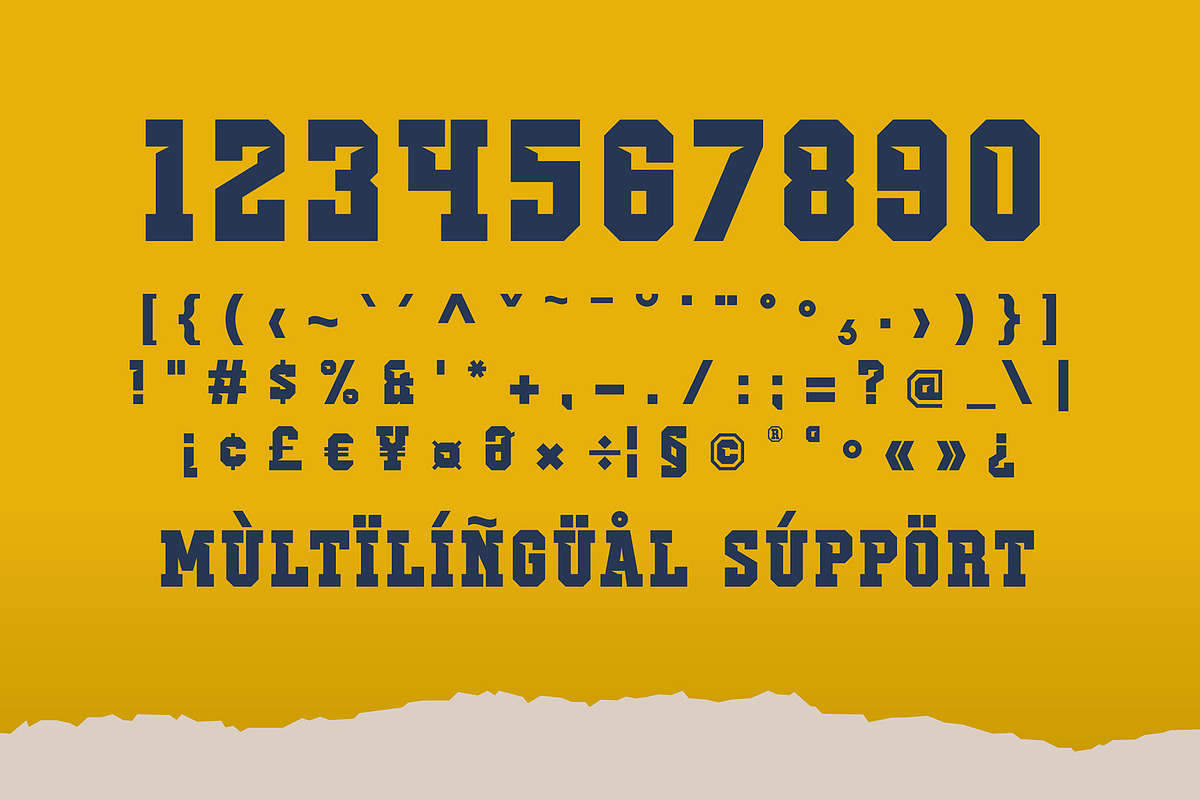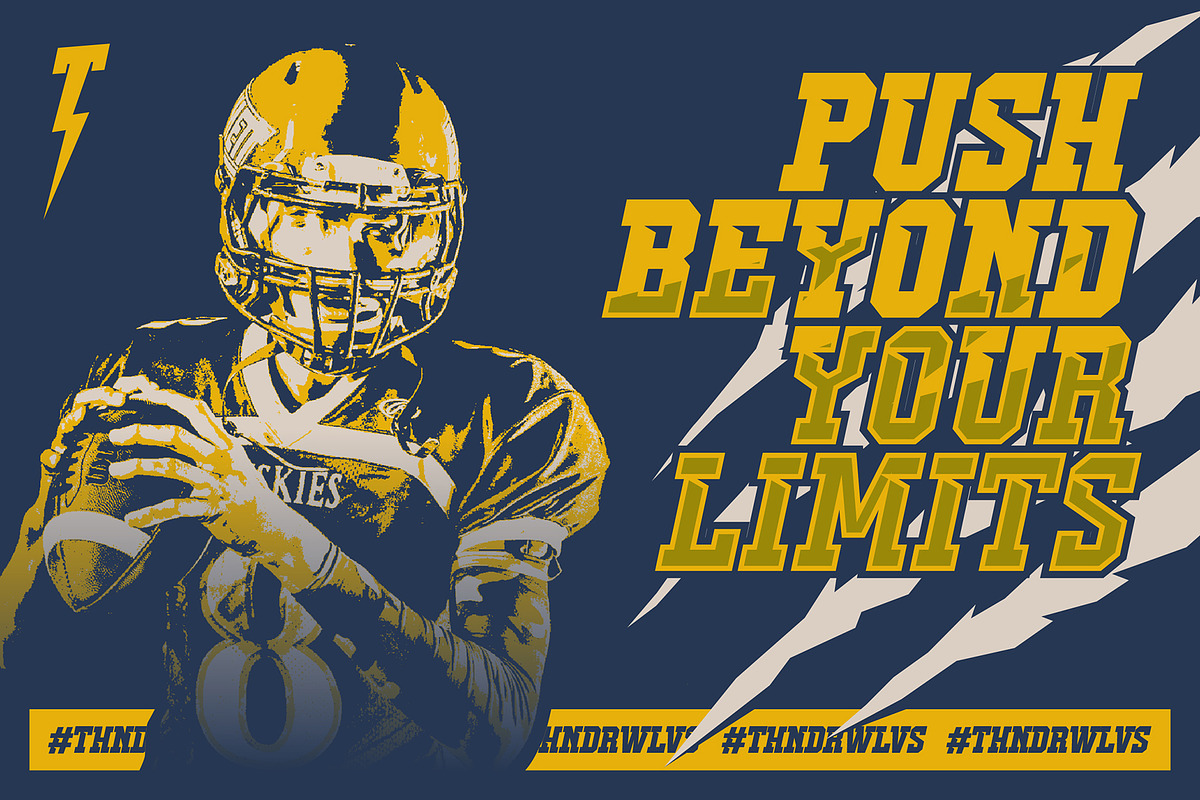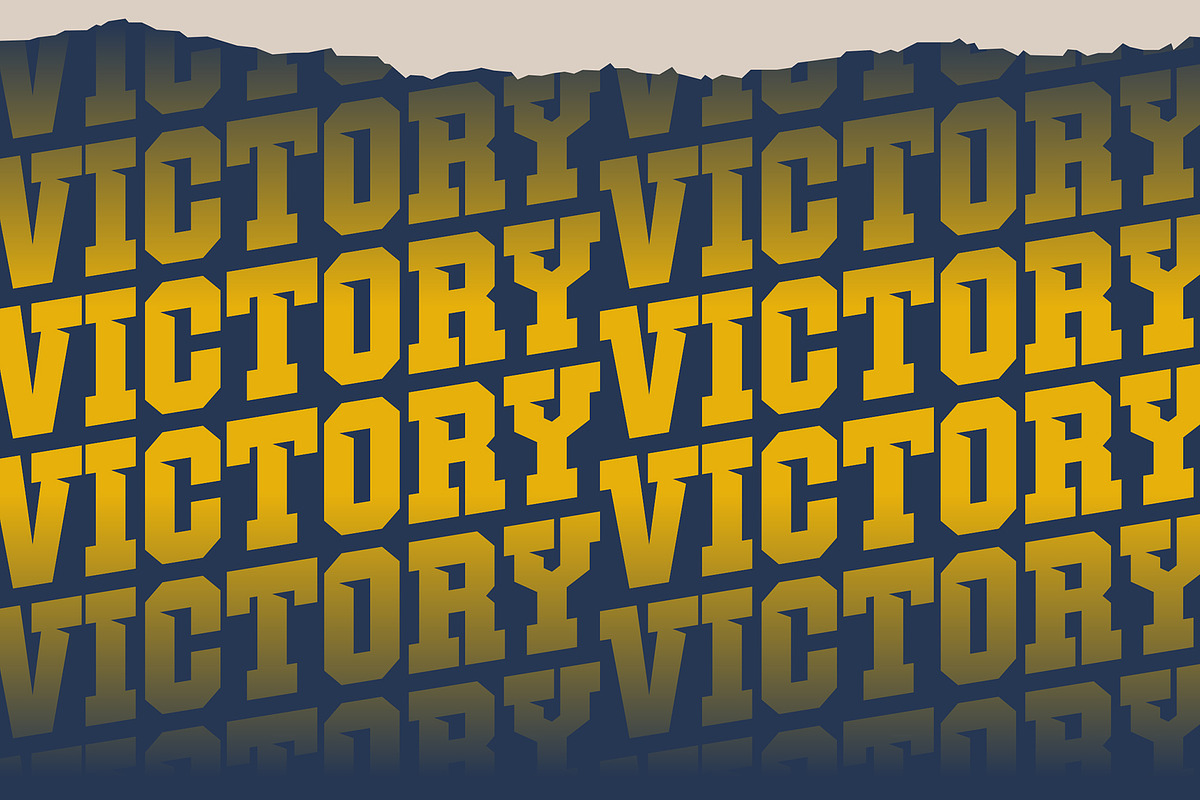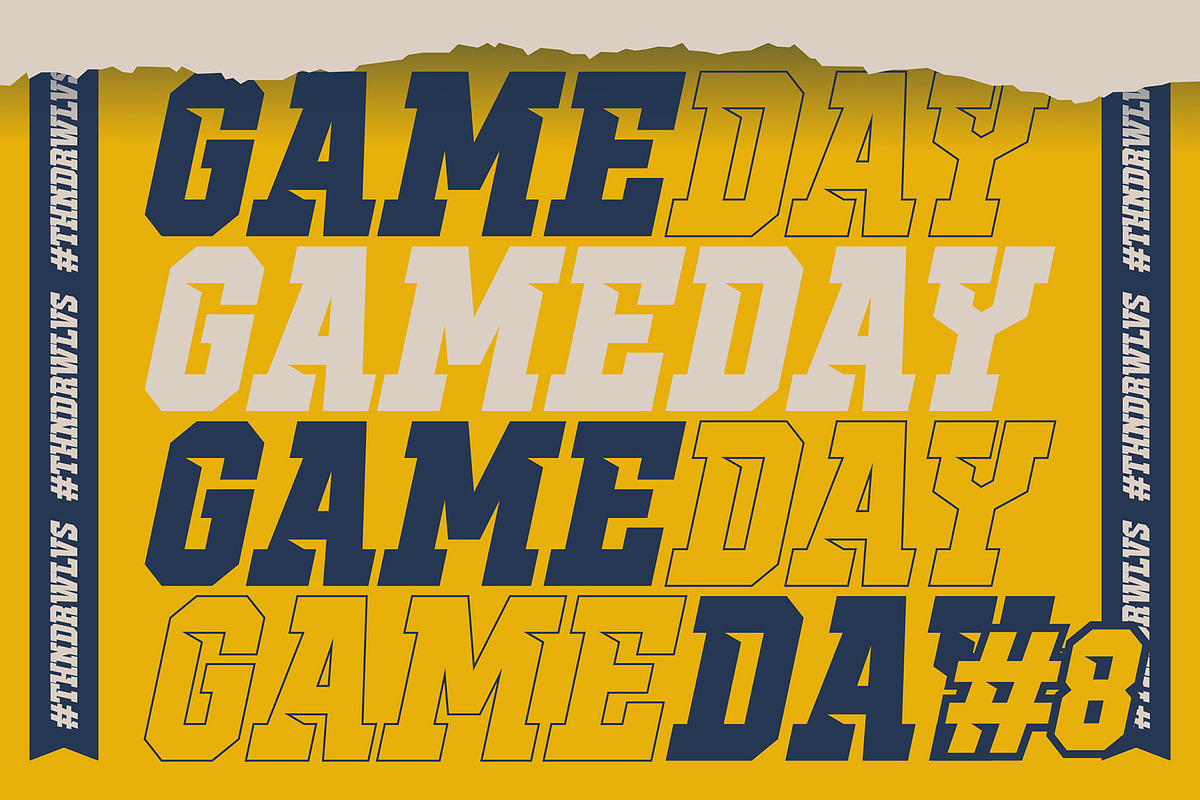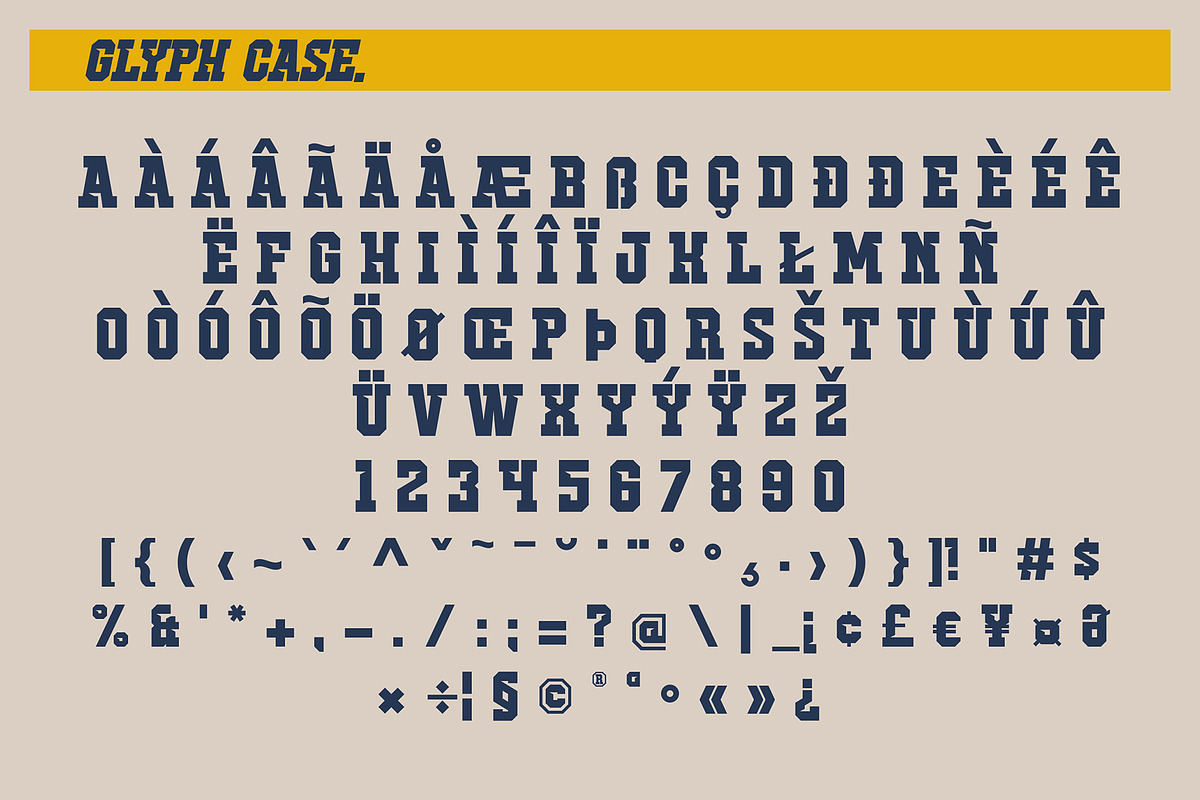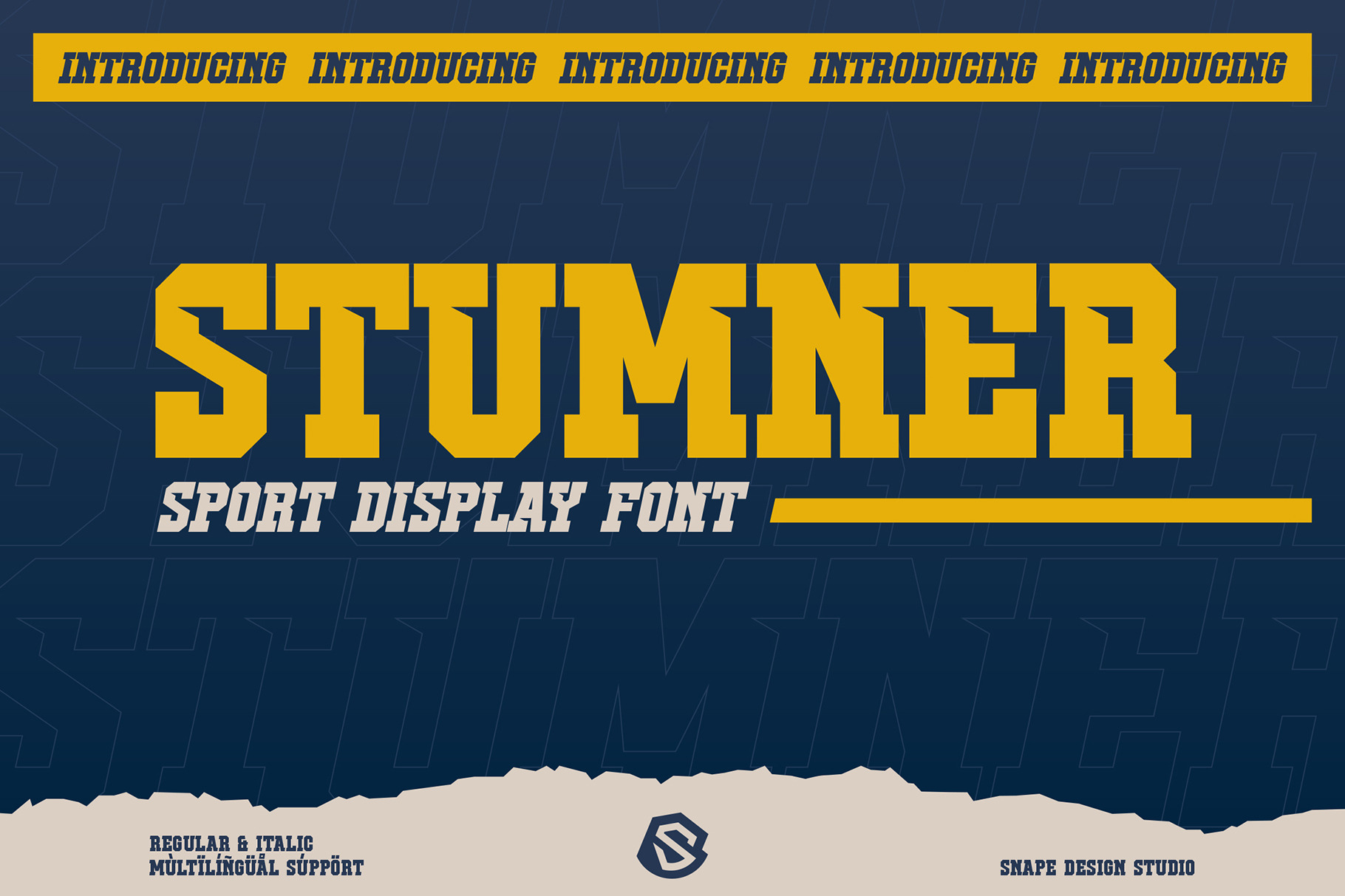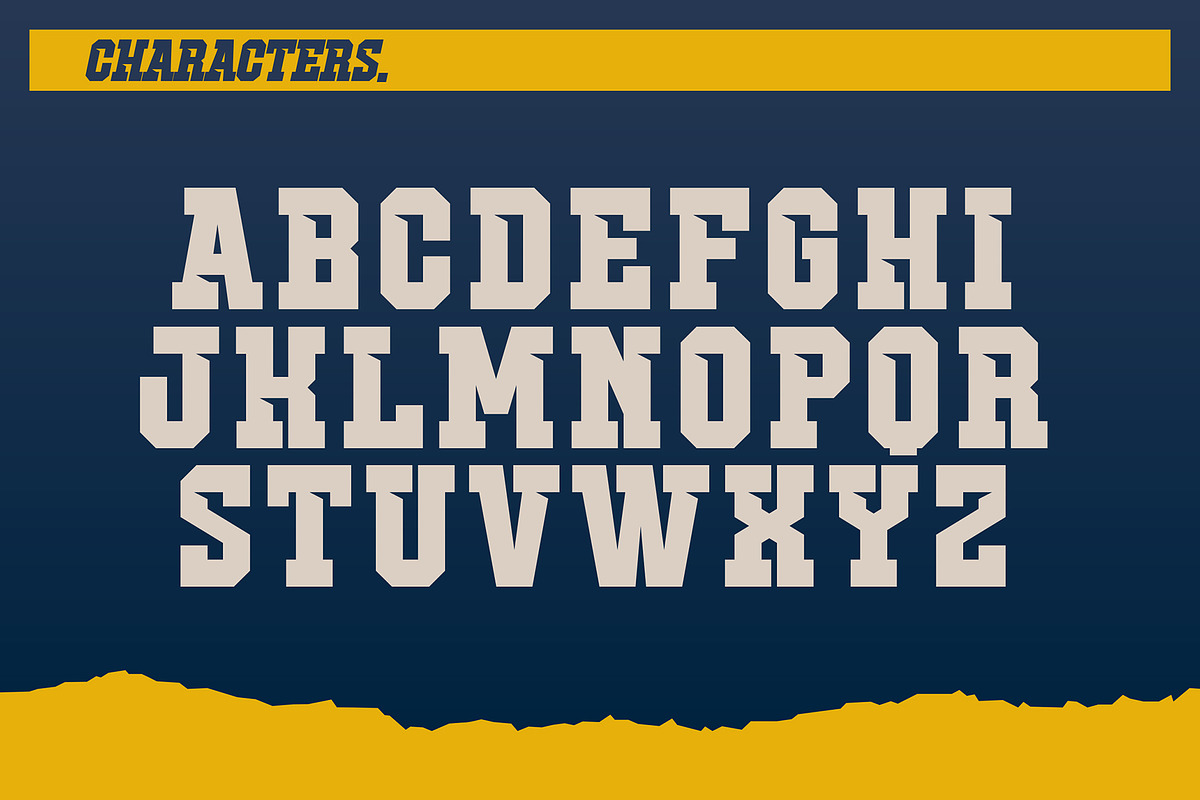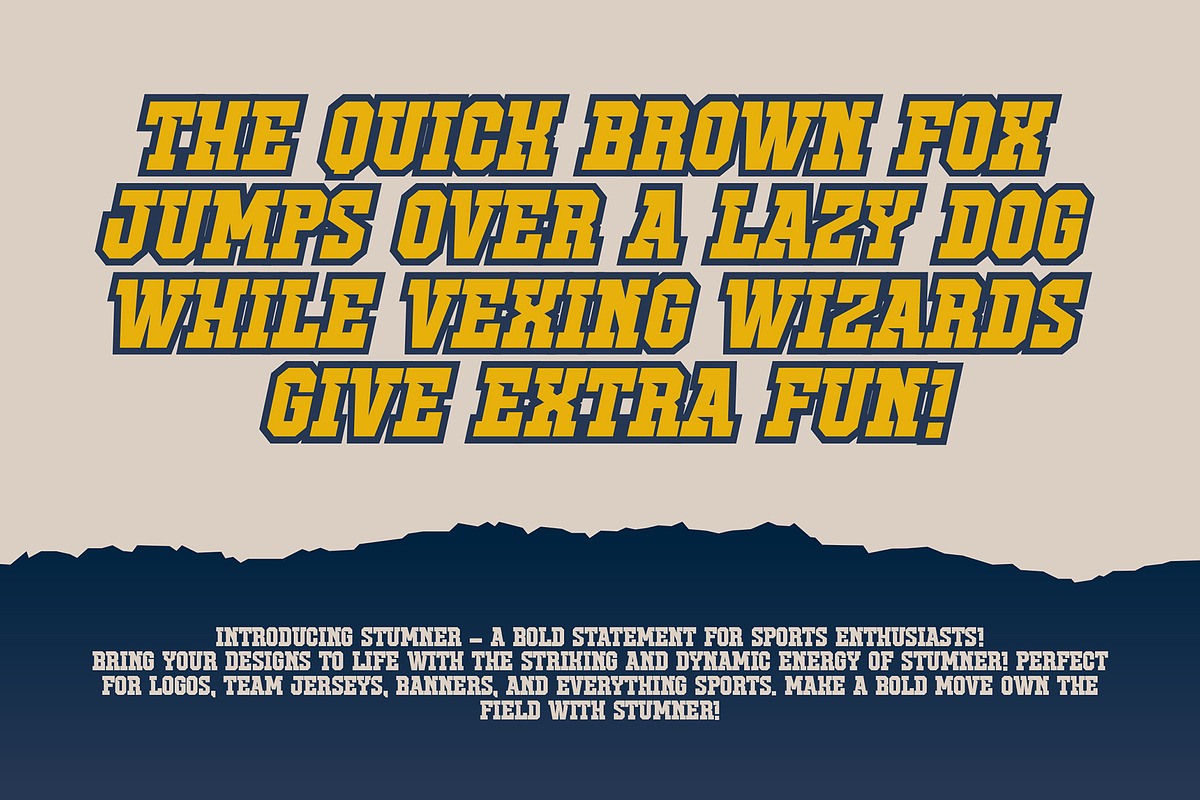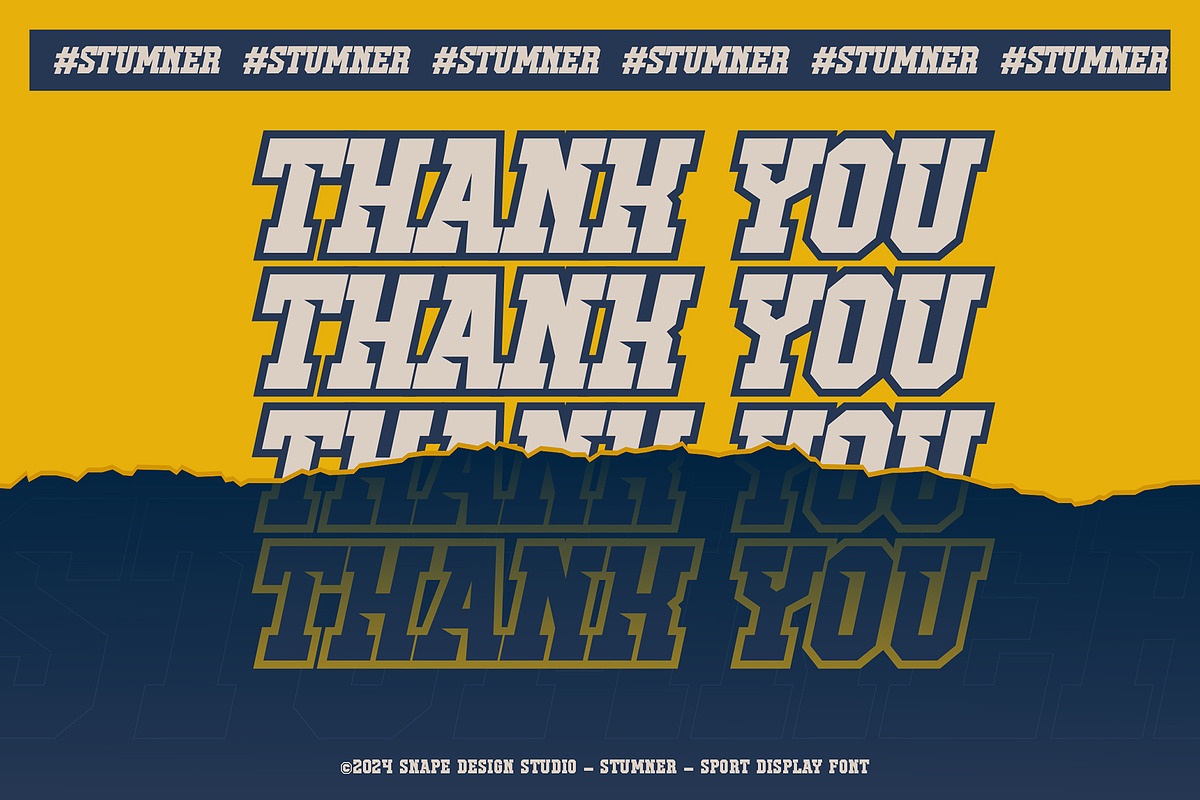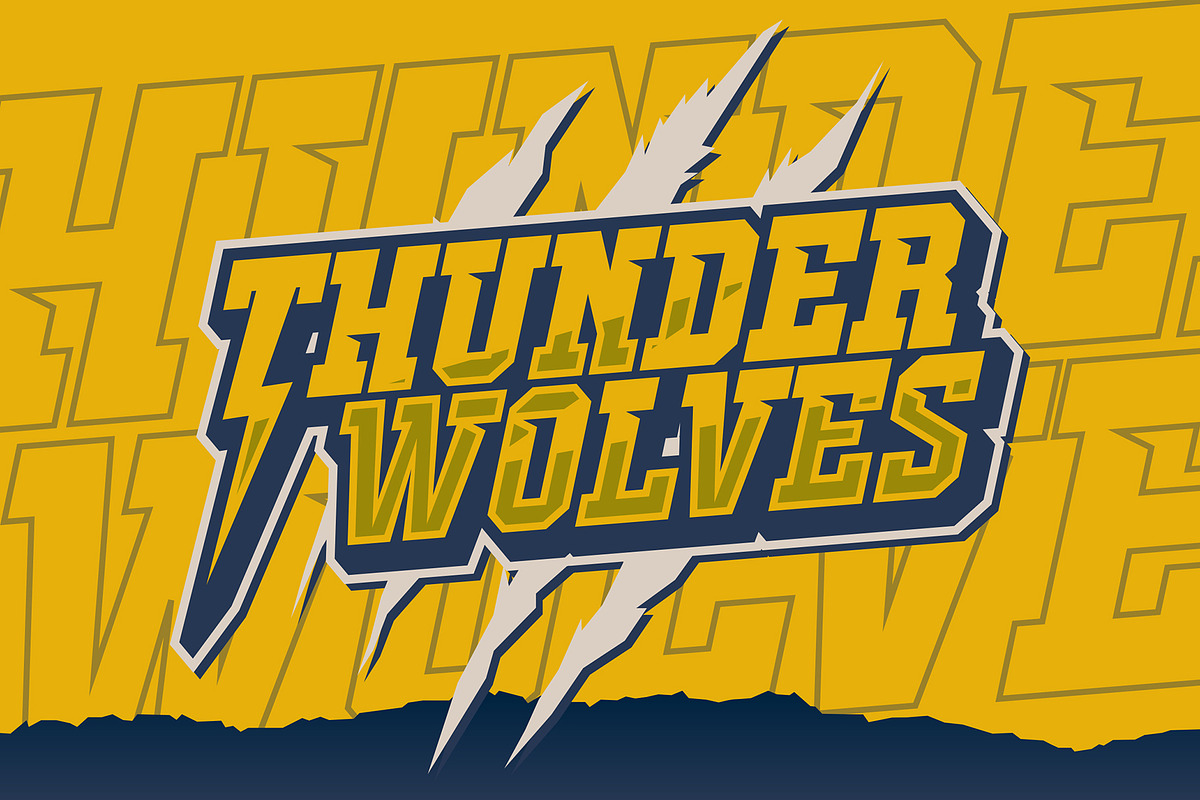
Stumner - Sport Display Font
Stumner - The Ultimate Bold Sport Font for Game-Changing Designs! Take your designs to the next level with Stumner, a powerful and dynamic font perfect for sports branding, team logos, and bold headlines. Packed with features to meet all your creative needs:
Whether you're designing for the big game or crafting an athletic-inspired project, Stumner delivers boldness and impact every time. Play bold, win bold!